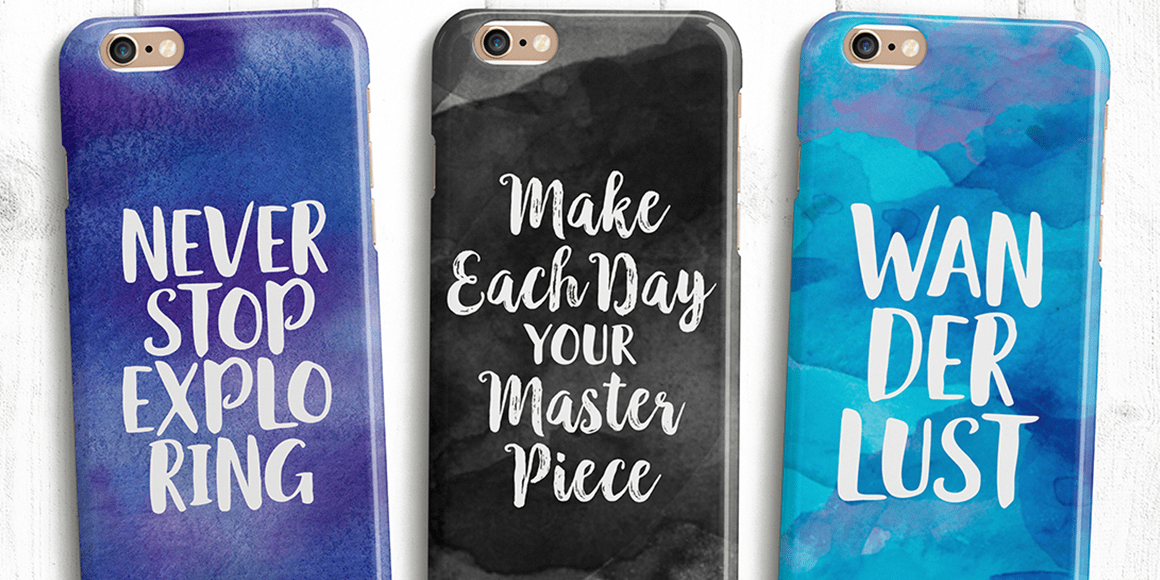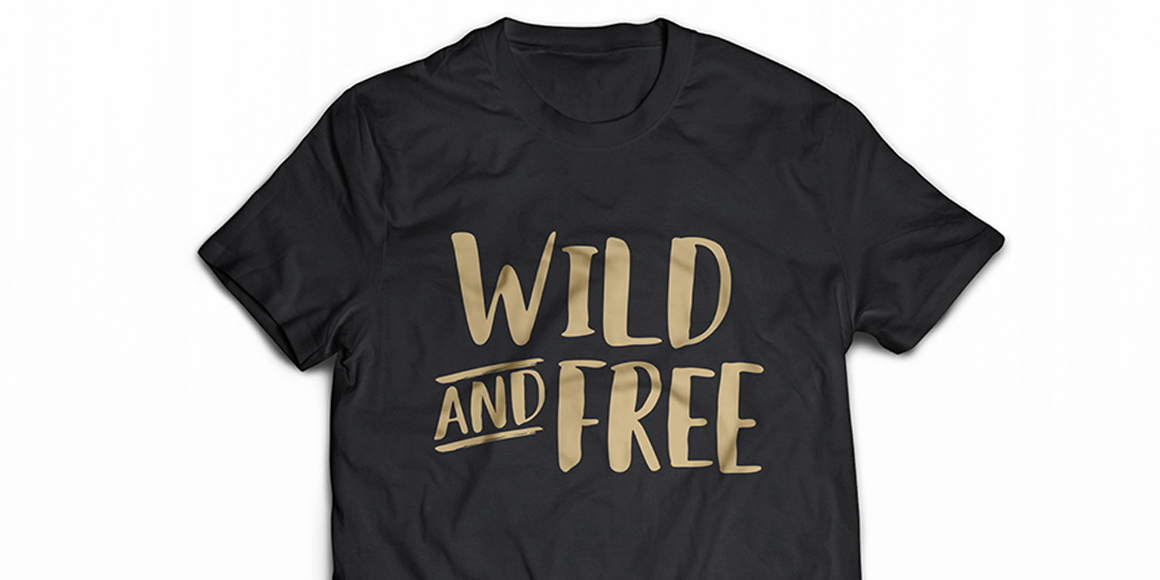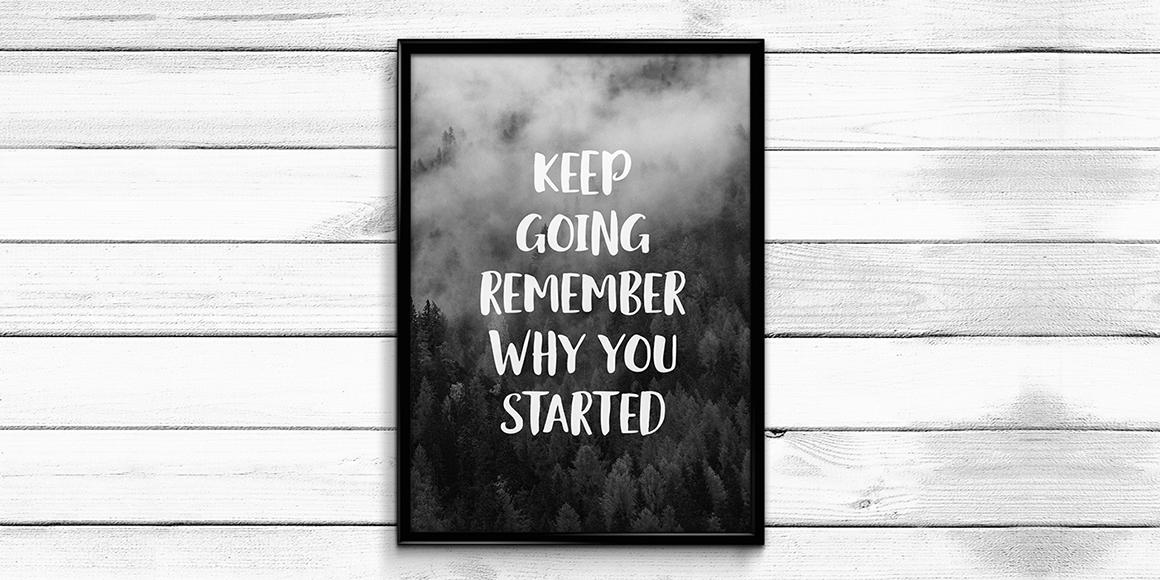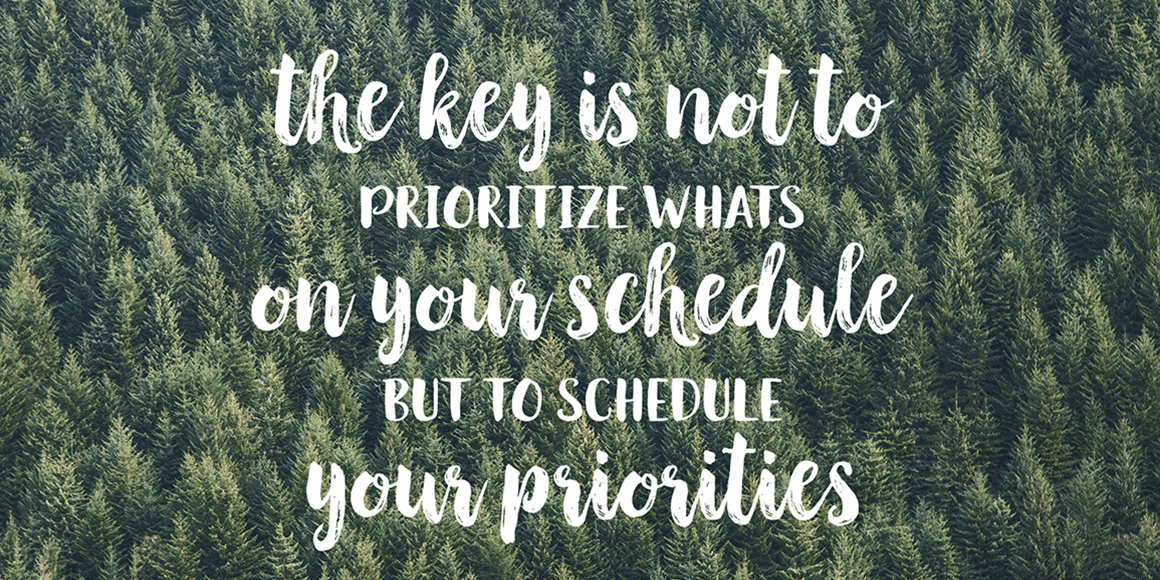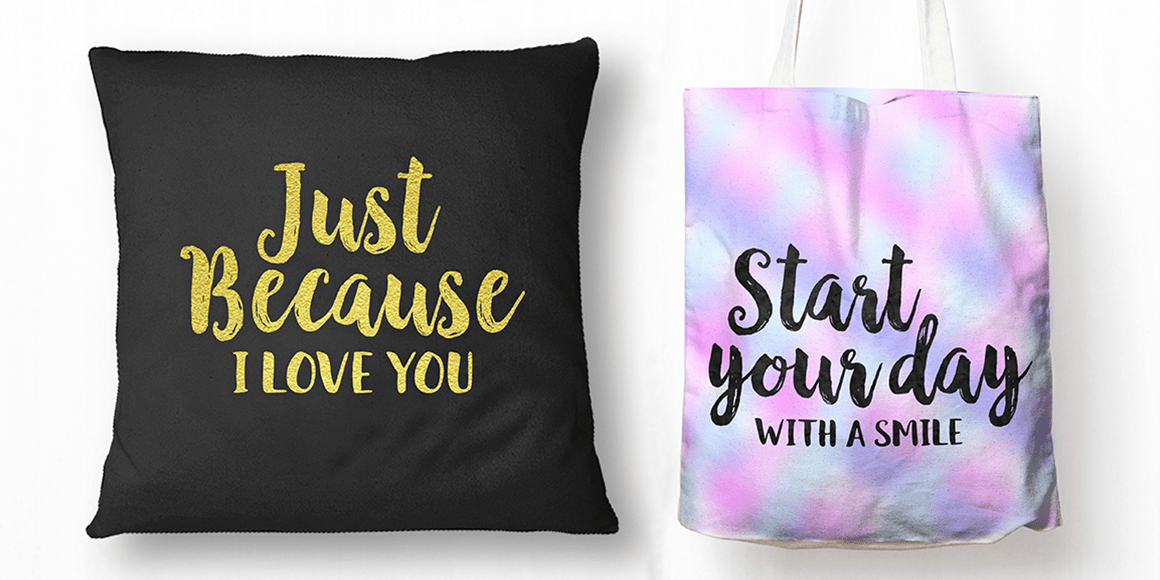
About Black and White
Black and White Script is a hand brushed font created with a brush and ink, bold and irregular baseline. Contains a complete set of lowercase, uppercase, alternates, ligatures, punctuation, numbers, and multilingual support. And additional Black and…